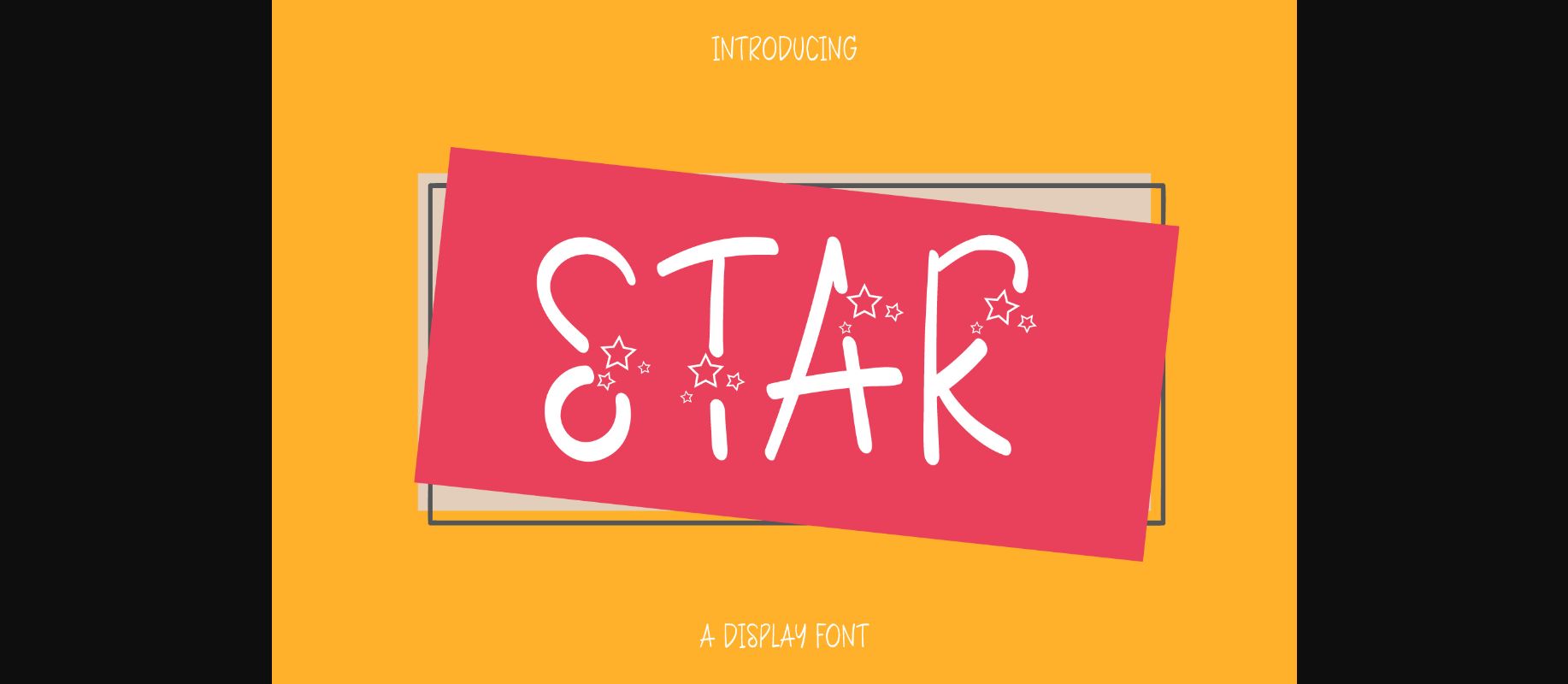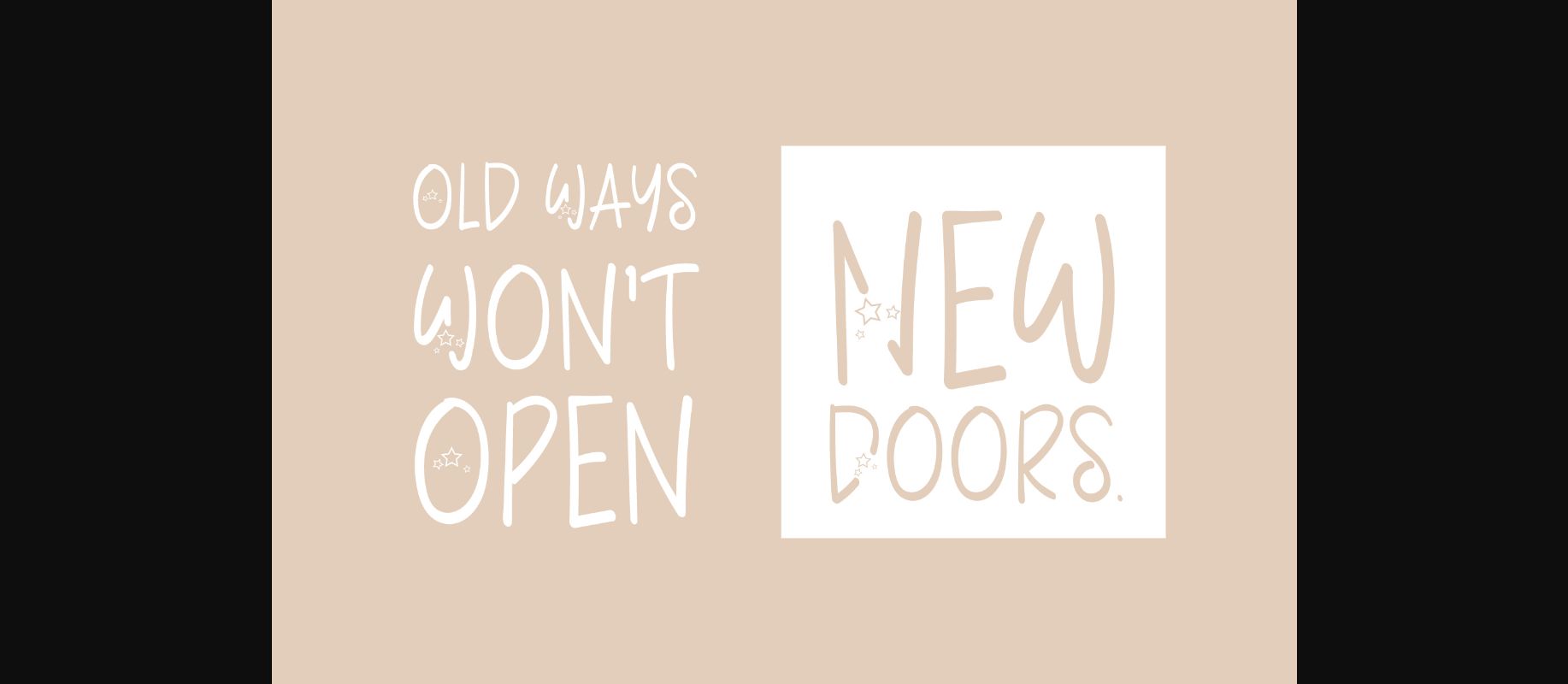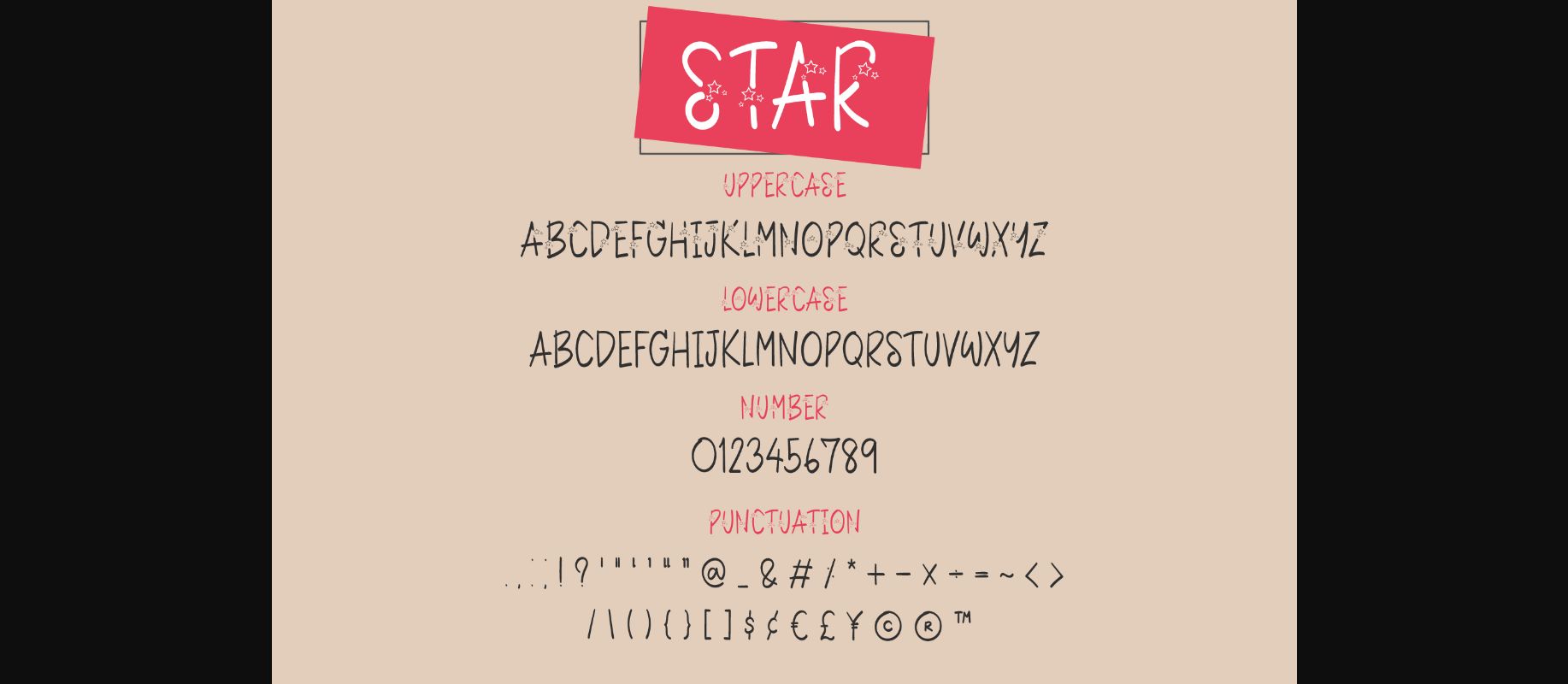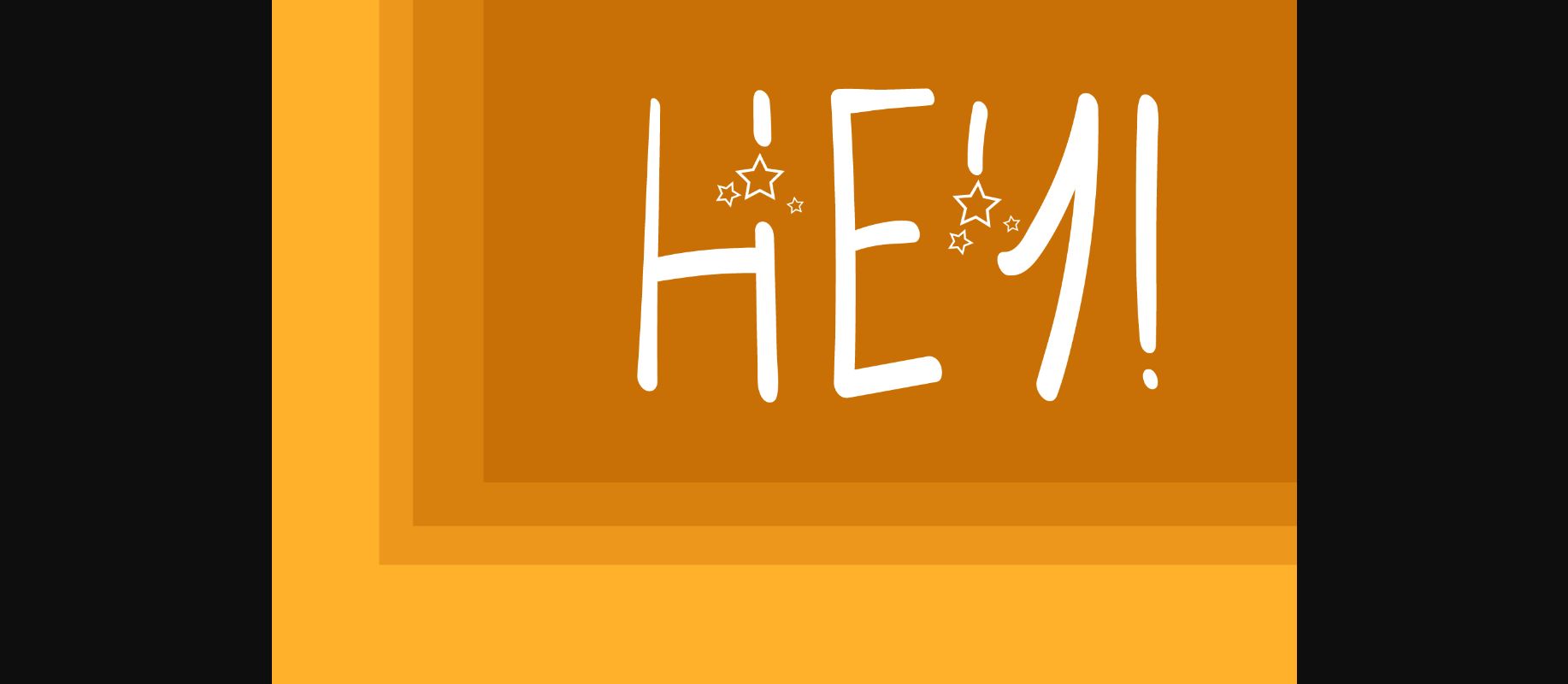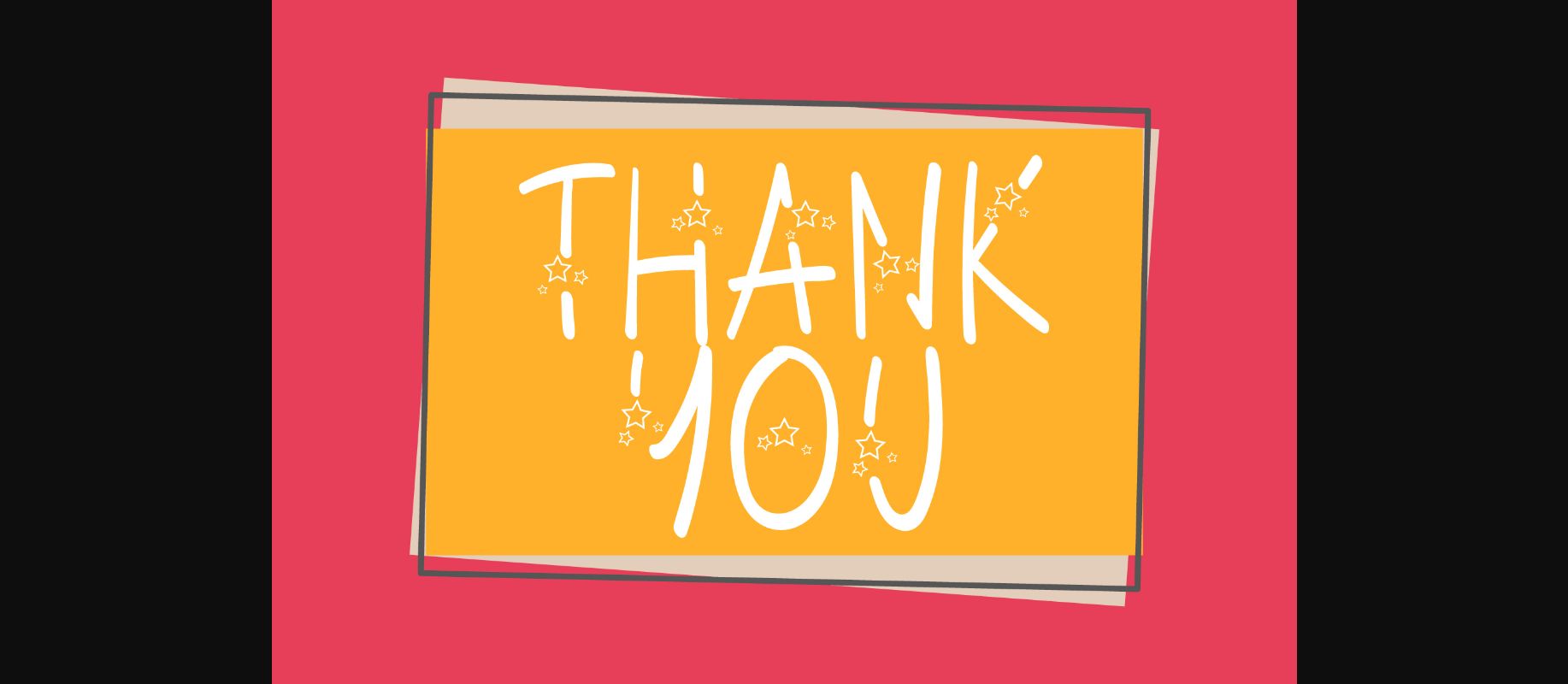
About The Star Font
The Star is a sweet decorative font, featuring a lovely star ornament. Fall in love with its authentic feel and use it to create gorgeous invitations, beautiful stationary art, eye-catching social media posts, and cute greeting cards.